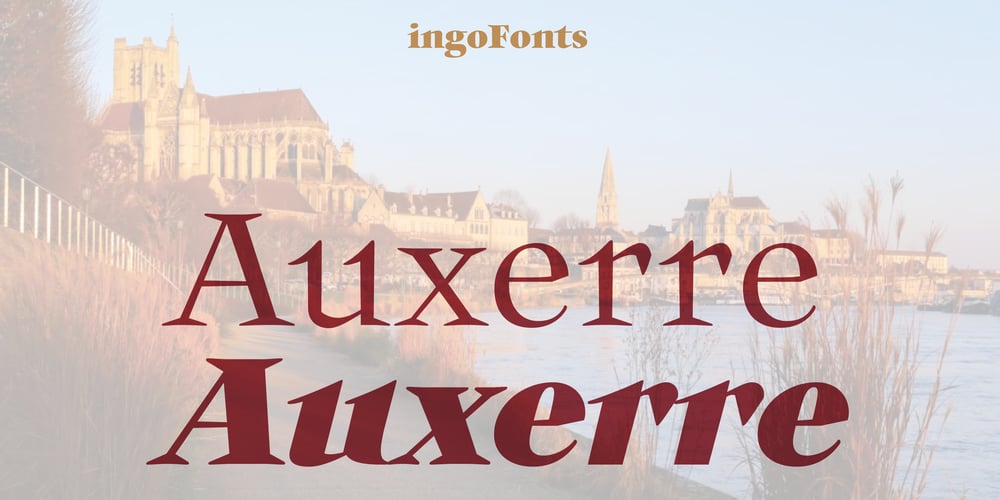
Auxerre Font Family was designed by Ingo Zimmermann and published by Ingo. Auxerre contains 9 styles and family package options. A Roman typeface with emphasized triangular serifs.A font like this one could have been designed in 18th century France.To some extent, Auxerre is a precursor of “Etienne,” which later became popular as an advertising typeface of the 19th century.Auxerre is available in five font weights: light, regular, semibold, bold and black.Auxerre supports Western and Central European languages including Scandinavian languages.Plus, the font includes lots of ligatures, tabular figures as well as a “Capital German Double S.”Auxerre fits perfectly with any topic related to the past two centuries. It also works amazingly well on technical issues. And of course it fits very well with topics of fine art and art history.